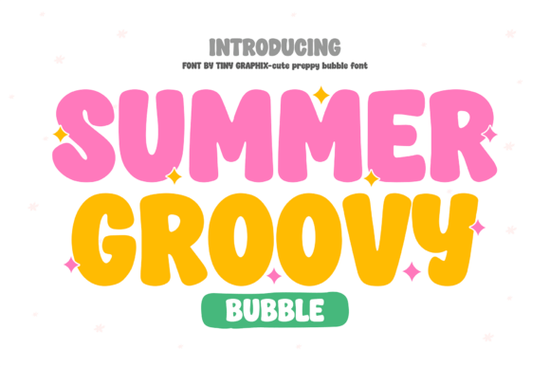
If you’ve been scrolling through display fonts lately and landed on Summer Groovy Font, you’re not alone. It’s one of those typefaces that catches your eye right away thick, bubbly letters with a retro bounce that feels like sunshine in font form. Designed by Tiny Graphix, it’s made for anyone who wants to add a little pep to their projects without overcomplicating things. Whether you’re printing custom tote bags, designing birthday invites, or making vinyl decals for your Etsy shop, this font brings personality without demanding design expertise.
What kind of projects does Summer Groovy work best for?
This isn’t a font you’d use for body text or legal disclaimers and that’s okay. Its strength is in headlines, logos, packaging, and anything meant to grab attention. Think:
- Custom t-shirts and hoodies for summer markets or beach-themed pop-ups
- Party banners and cupcake toppers for birthdays, baby showers, or pool parties
- Social media quote graphics with a cheerful, nostalgic tone
- Stickers and enamel pins aimed at teens or young adults who love preppy aesthetics
It pairs especially well with pastel backgrounds, palm leaf patterns, or even minimalist black-and-white layouts where the font becomes the focal point. If you’re into the “cottagecore meets Y2K” trend, this fits right in. And if you liked the playful energy of Oopsy Doodle but want something cleaner and more structured, Summer Groovy might be your next go-to.
One thing worth noting: because the letters are so rounded and bold, spacing matters. You might need to adjust letter-spacing (tracking) slightly depending on your layout. Too tight, and the characters start to blob together; too loose, and you lose that cohesive bubble-gum look. A quick preview before finalizing your design saves time later.
How does it compare to other retro display fonts?
Summer Groovy sits comfortably between “cartoonish” and “commercial chic.” It’s not as wild as some graffiti-style fonts, nor as stiff as corporate sans-serifs. The curves feel intentional, not sloppy which makes it usable for small businesses that still want to appear fun and approachable. Compared to something like Summer Groovy Font, similar alternatives often lean harder into either vintage psychedelia or modern minimalism. This one strikes a balance.
If you’re already using fonts like Summer Groovy in your toolkit, you’ll appreciate how it layers with script fonts or thin sans-serifs for contrast. Try pairing it with a delicate handwritten font for wedding signage or with a clean geometric sans for product labels the chunky letters hold their own without overwhelming the composition.
Any tips for getting the most out of this font?
A few practical ideas:
- Use color wisely. Bright pinks, sky blues, and buttery yellows enhance its vibe. Avoid muddy tones they dull the playful energy.
- Scale it big. This font shines when it’s large. Don’t shrink it down to footnote size let those bubbles breathe.
- Add simple shadows or outlines. A subtle white stroke around dark letters on a colored background can make them pop even more, especially on merchandise.
- Stick to short phrases. “SUMMER SALE” or “BEACH VIBES ONLY” works better than paragraphs. Keep it punchy.
And if you’re selling print-on-demand items, test how the font looks when printed on different materials. Some fabrics or papers absorb ink differently what looks crisp on screen might need slight tweaks for physical output.
Who should skip this font?
If your brand voice is ultra-serious, corporate, or minimalist to the point of austerity, this probably isn’t your match. Also, if you’re designing for audiences who prefer sleek, tech-forward aesthetics (think SaaS startups or fintech), you might want to look elsewhere. But for crafters, party planners, boutique owners, and hobbyists who want their work to feel joyful and handmade? This font delivers exactly what it promises.